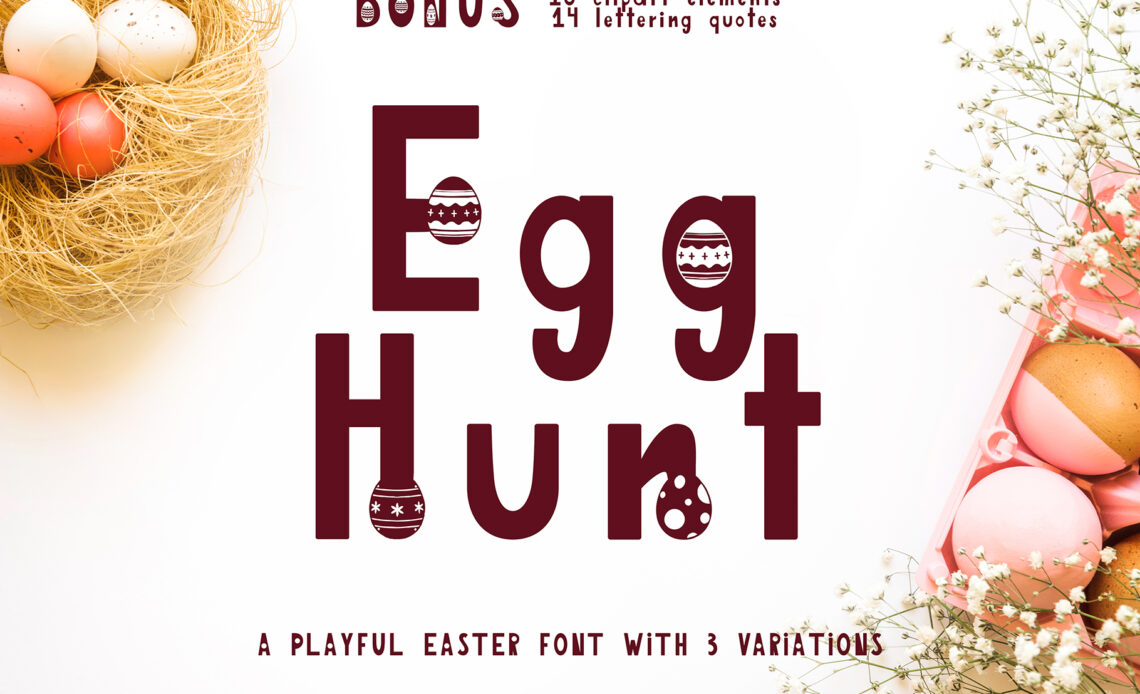
Egg Hunt Font
Prepare yourself for an egg-cellent adventure with Egg Hunt Font, the most charming and festive display font that will transform your design into a delightful spectacle! Whether you're crafting Easter greetings, designing invitations, or adding a touch of whimsy to your creative projects, Egg Hunt Font is the perfect companion for all your Easter-themed endeavors.
This enchanting font family boasts a captivating range of styles, empowering you to tailor your designs to perfection. Unleash your creativity and experiment with different styles to achieve a look that's uniquely yours. Each style is adorned with adorable Easter egg decorations, adding a touch of playful elegance to every letter.
With Egg Hunt Font, your designs will hatch into something truly special. Let the spirit of Easter infuse your projects with its cheerful charm, as this delightful display font paints a vibrant and unforgettable picture. It's the perfect choice for adding a touch of Easter cheer to your websites, social media posts, and any other creative venture that calls for a dash of festive flair.
So, hop on board the Egg Hunt Font train and embark on a whimsical journey of design exploration! Let the spirit of Easter guide your creativity as you create designs that are both visually stunning and heartwarmingly festive. With Egg Hunt Font, the possibilities are endless – just like the joy and wonder of Easter itself!